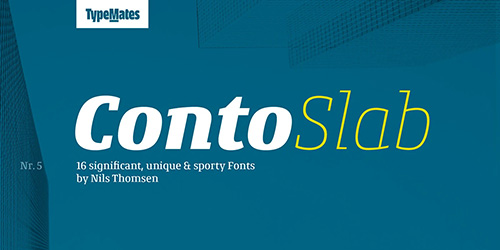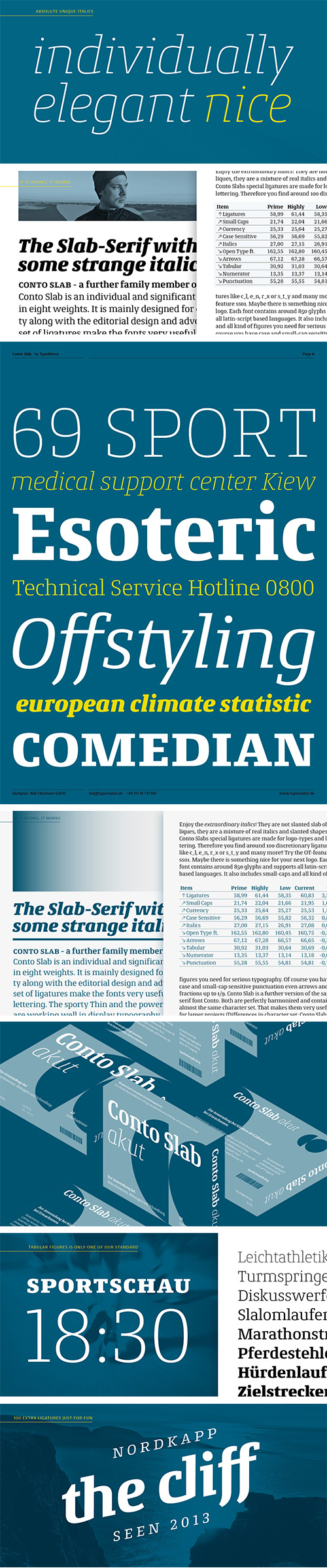
Conto Slab - 16 Styles + 2 Variables Font Family
Providing 8 weights + italics with 850 glyphs per font and 100 fancy ligatures
- Conto Slab is a distinct and distinctive Slab Serif typeface in eight weights. Another member of the Conto superfamily, Conto Slab was designed for idiosyncratic corporate identity, editorial design and advertising. Conto Slab combines Conto’s minimalist and simplified forms and humanistic contrast with, you guessed it, slab serifs. The result is an unexpected and confident combination of genres with solidity, sportiness and independence.
- Along with its constructed approach to lowercase letterforms, Conto Slab’s design features include a carefully structured increase in contrast. Almost non-existent in the Thin, weight and tension increase up to the Black.
- While the Regular, Medium and Bold weights were designed for text and data-intensive content, the sporty Thin and the powerful Black weights work well in display typography. Enjoy the Italics! Instead of slanted Obliques, Conto has a refreshing combination of slanted and true Italics.
- Conto Slab’s interest in branding is reflected in its OpenType features. Accessible through discretionary Ligatures, some 100 extravagant ligatures offer answers to your next logotype and lettering challenge.
- From elegant Thin to strong Black, Conto Slab contains more than 878 glyphs and broad Latin language and advanced typographical support. small caps and all the figures and fractions you need for serious typography are matched in each weight with case and small-cap sensitive punctuation.
- All OpenType Features included: Access All Alternates, Capital Spacing, Caps to Small Caps, Case Sensitive, Contextual Alternates, Denominators, Discretionary Ligatures, Fractions, Glyph Composition/Decomposition, Kerning, Ligatures, Lining Figures, Localized Forms, Mark to Mark Positioning, Numerators, Old style Figures, Ordinals, Proportional Figures, Scientific Inferiors, Slashed Zero, Small Capitals, Stylistic Alternates, Stylistic Set 01: Alternate Cedilla, Stylistic Set 02: Alternate Ampersand, Stylistic Set 03: Tabular Width Set, Stylistic Set 20: Smart Typography, Subscript, Superscript, Tabular Figures